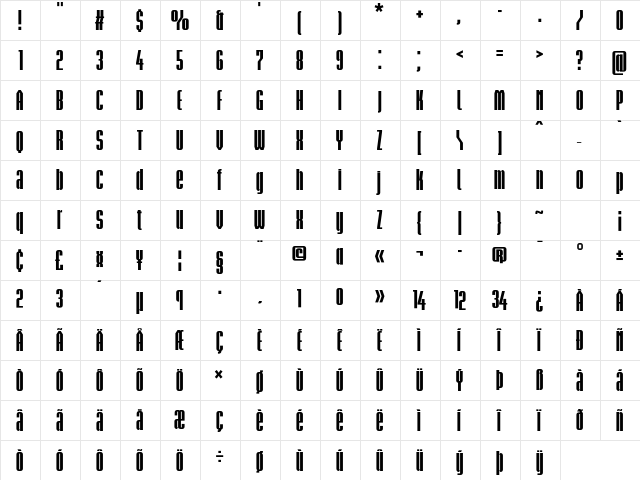
Briem Akademi Std Black Condensed
| Designer | Gunnlaugur SE Briem |
Design Context for Briem Akademi Std Typeface
Briem Akademi Std offers clean, dependable letterforms without strong stylistic allegiance, making it a practical choice for designers who need flexibility. Its narrow stance lets it pack a punch even in space-constrained designs.